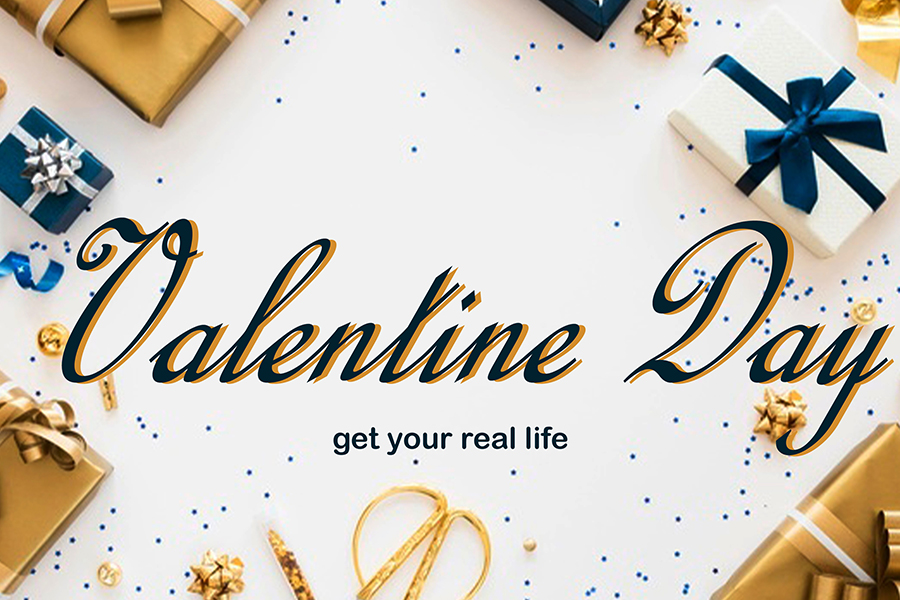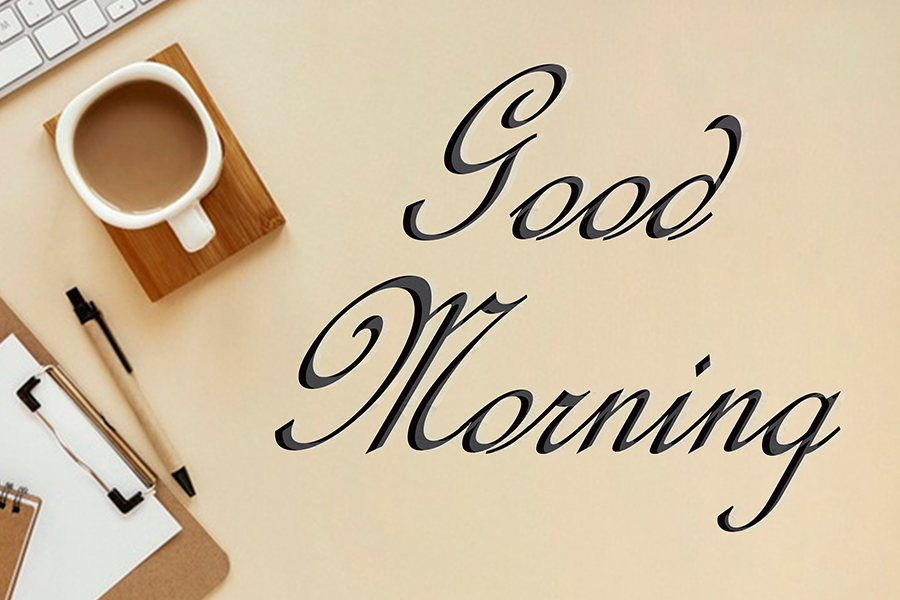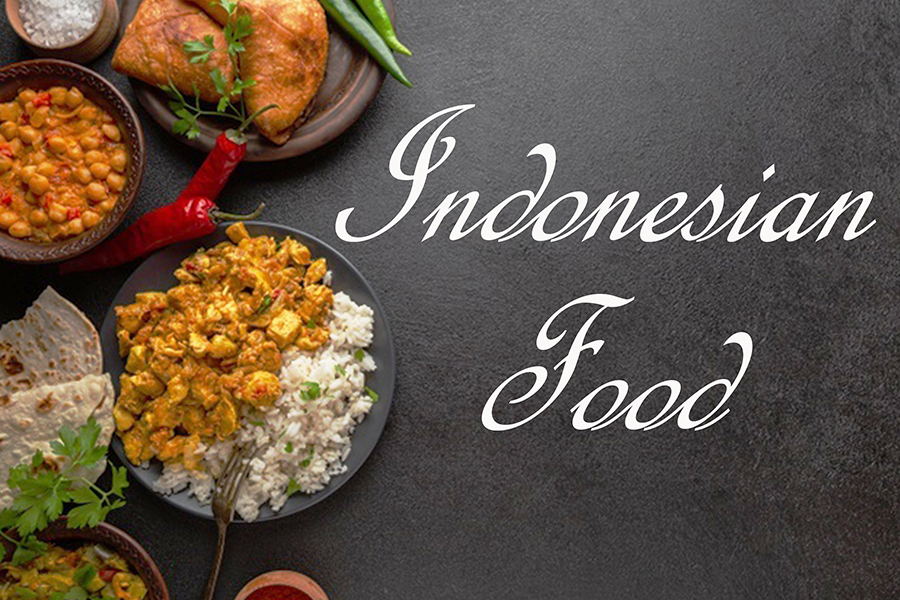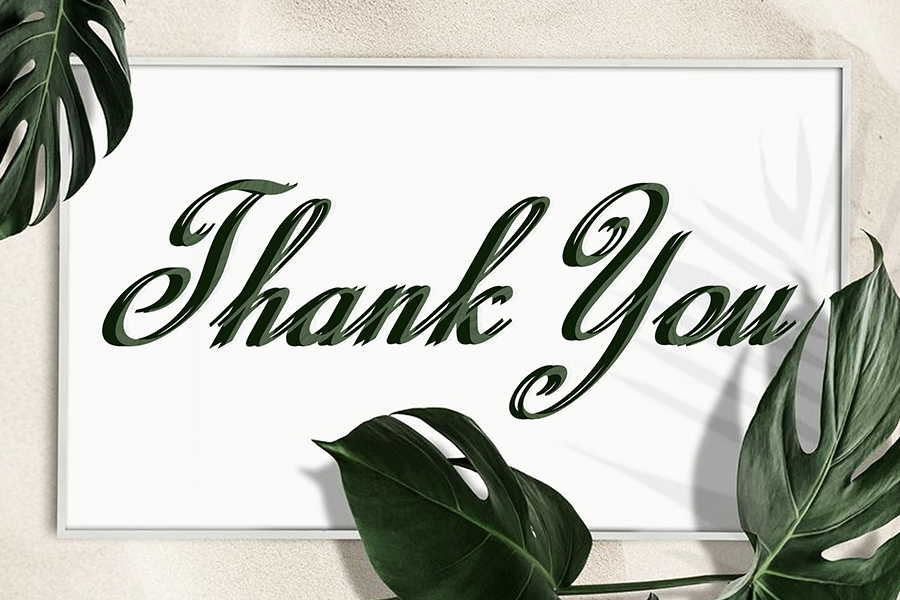
Calligraphy Script Font
Calligraphy Script – Modern Script Font , from Glorytype Studio, suitable for any projects such as: logos, branding projects, homeware designs, product packaging, mugs, quotes, posters, shopping bags, t-shirts, book covers, name card, invitation cards, greeting cards, label, photography, watermark, special events, and all your other lovely projects that need a beautiful script taste.